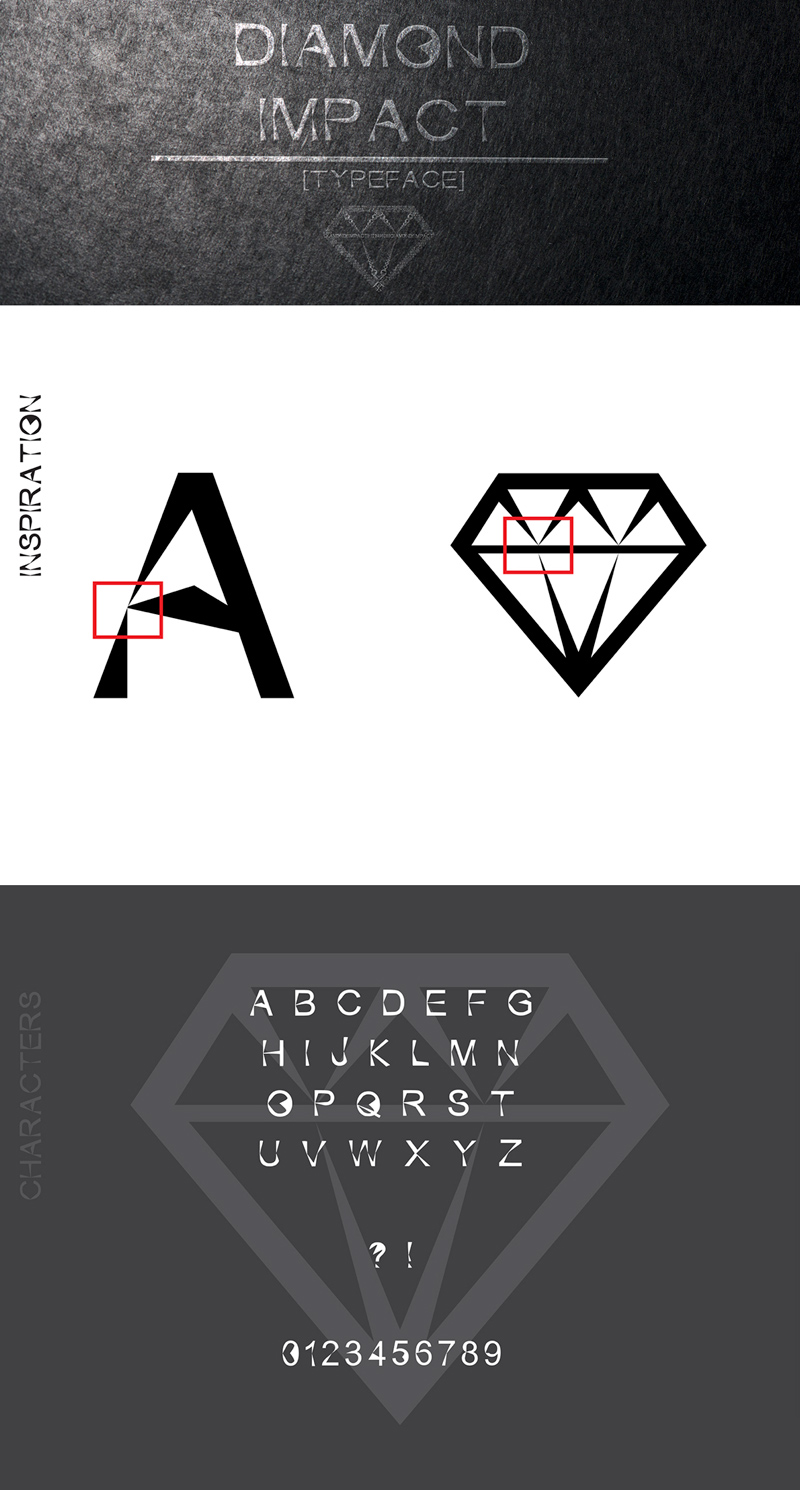
Diamond Impact Typeface
An artistic Diamond Impact typeface that designed and released by Christos Petropoulos. Enjoy!
A student project for the 2nd year in Vellios School of Art for the Typography course. Purpose of this project was to create a new font style.